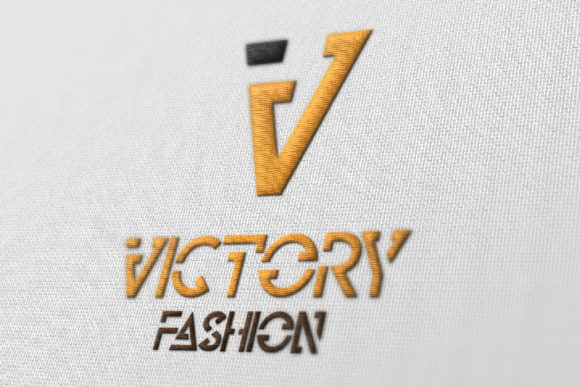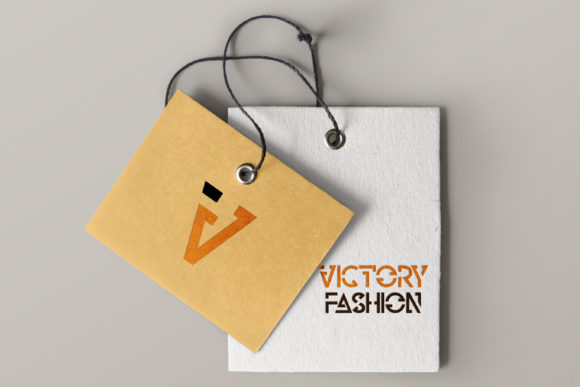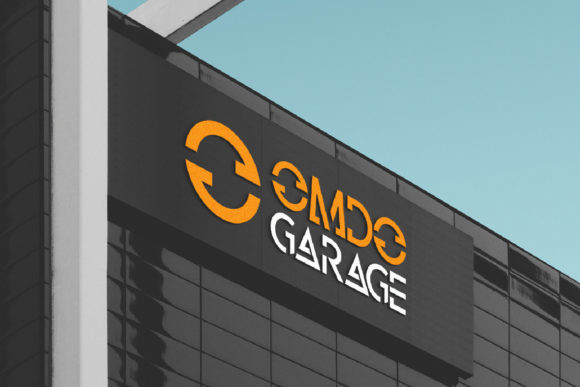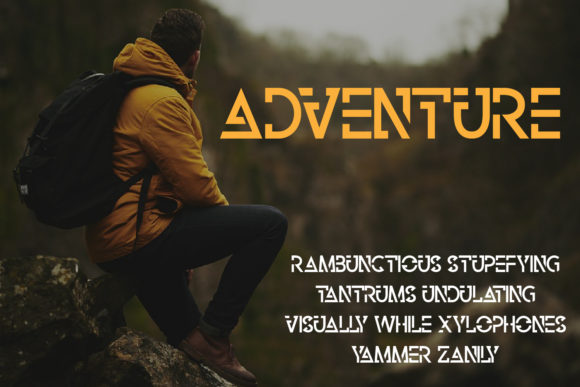
Introduction to Ledre Font
Have you ever found yourself staring at a blank design canvas, desperate for the perfect font to bring your creative project to life? The right font can make all the difference, elevating your design from ordinary to extraordinary. And that’s exactly what the Ledre Font does – it’s a game-changer.
With its light and charming feel, the Ledre Font is perfect for designers looking to add a touch of modernity to their designs. Its slightly futuristic design elements make it a versatile choice that can be used across a wide range of projects, from digital displays to print materials. Whether you’re working on a high-quality design resource or just need a font for a personal project, the Ledre Font is an excellent choice.
Key Features of Ledre Font
- High-quality design resource with a unique, creative style perfect for various projects.
- Supports transparent background for seamless integration into any design.
- Includes a comprehensive set of characters, including uppercase and lowercase letters, numbers, and punctuation marks.
- Designed with a high resolution of 300 DPI, ensuring crisp and clear typography.
- Ideal for use in creative projects such as logos, branding, and packaging design.
Honest Review: Ledre Font
I recently had the chance to work with the Ledre Font, and I must say it’s been a game-changer for my creative projects. This free download has truly elevated my designs with its high quality and versatility.
What works well: ✨ The Ledre Font is incredibly easy to use, even for beginners. Its clean and modern design makes it perfect for a wide range of creative projects, from branding to editorial work. The transparent background option is also a huge plus, allowing for seamless integration into any design.
- Perfect for branding, editorial, and other creative projects
- High quality and versatile design
- Easy to use, even for beginners
- Transparent background option for seamless integration
However, there are a few limitations to consider: ⚠️ The Ledre Font may not be suitable for projects that require a lot of customizability. Additionally, some users may find the font’s modern aesthetic too trendy for certain design styles.
Overall, I’m thoroughly impressed with the Ledre Font. Its high quality, versatility, and ease of use make it a valuable design resource for any creative project. Whether you’re a seasoned designer or just starting out, the Ledre Font is definitely worth checking out.
Tips for Getting the Most Out of Ledre Font
Some tips for getting the most out of the Ledre Font include experimenting with different font sizes and styles, combining the font with other design resources, and using the font in conjunction with a transparent background to create a unique and eye-catching design.
The Ledre Font is commonly used in a variety of creative projects, including logos, brochures, business cards, and social media graphics. Its high-quality design and transparent background feature make it an ideal choice for designers looking to create professional-looking designs.